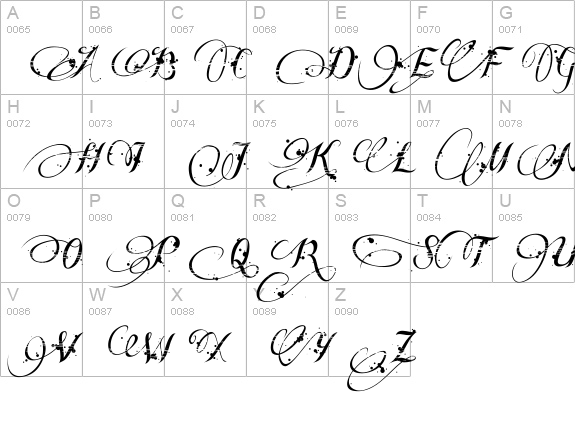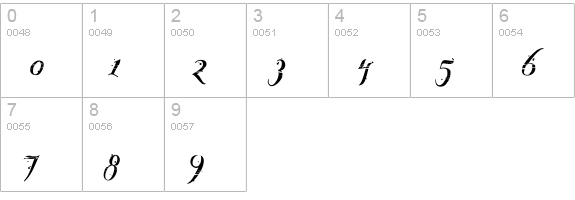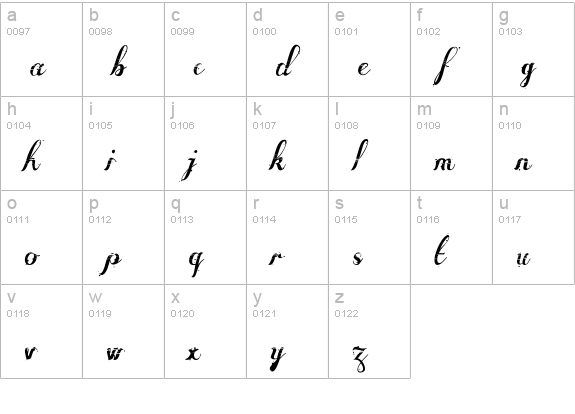
Many Weatz Font Details
Many Weatz is a stunningly elegant and intricately designed font that is sure to capture your attention. This exquisite font features unique, hand-drawn letterforms with delicate flourishes and beautifully curved strokes. Its flowing and graceful appearance adds a touch of sophistication to any project. Many Weatz is perfect for a wide range of design projects, including logos, branding, invitations, packaging, and more. Its versatility allows it to seamlessly blend with both modern and traditional designs, making it a must-have for any designer or creative professional. One of the best things about Many Weatz is that it is absolutely free. That's right, this remarkable font can be freely downloaded at FontsMarket.com. Whether you're a professional designer or just starting out, you can now add this extraordinary font to your collection without breaking the bank. With Many Weatz, you have full control over your typographic creations. Its extensive character set includes both uppercase and lowercase letters, numbers, punctuation, and special characters. This font also supports multiple languages, ensuring that you can use it to create captivating designs for audiences around the world. The attention to detail and meticulous craftsmanship of Many Weatz truly sets it apart from other fonts. Each letter has been carefully crafted to convey a sense of elegance and sophistication. The subtle curves and fine lines give the font a sense of fluidity and movement, adding a touch of beauty to every word. So why wait? Enhance your designs with the captivating beauty of Many Weatz. Download this extraordinary font for free at FontsMarket.com and unlock a world of creative possibilities. Whether you're designing a wedding invitation, a book cover, or a logo for your brand, Many Weatz is sure to leave a lasting impression.